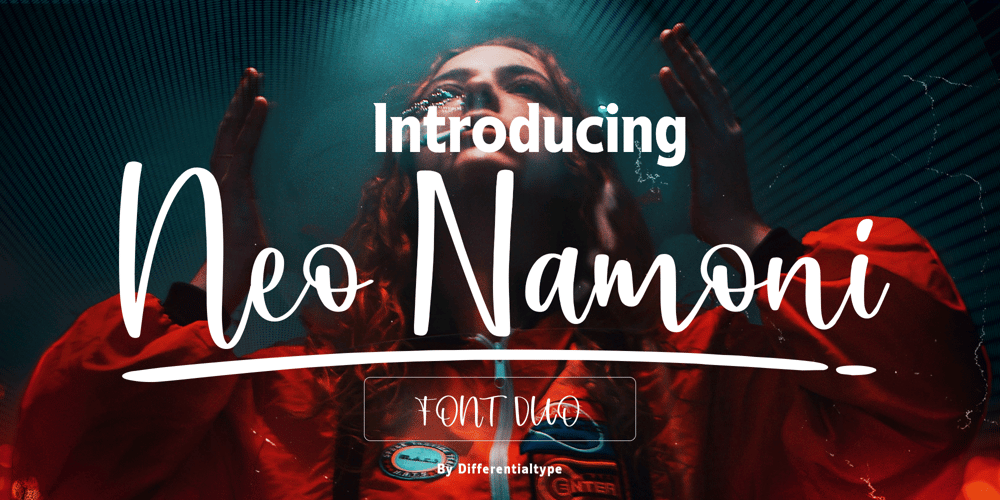
Neo Namoni Font Family was designed by Sidik Sidik and published by Differentialtype. Neo Namoni contains 3 styles and family package options. Introducing Neo Namoni, a stunningly beautiful typeface that embodies contemporary elegance. This font has 3 styles, regular, italic, and script which are very beautiful when you combine them. These versatile gems are perfect for adding a sophisticated touch to your branding projects, giving a magazine cover a distinctive personality, adorning your social media posts, or adding heart-warming sincerity to wedding invitations. From the simple to the grand, any expression feels more profound with Neo Namoni’s influence. This unique font transforms everyday visuals into artistic creations, making it a valuable addition to your typography toolkit. Additionally, easy access to all glyphs and swashes is provided as Neo Namoni is PUA coded, offering you the freedom to develop creativity in your designs. Discover the transformative power of Neo Namoni today!